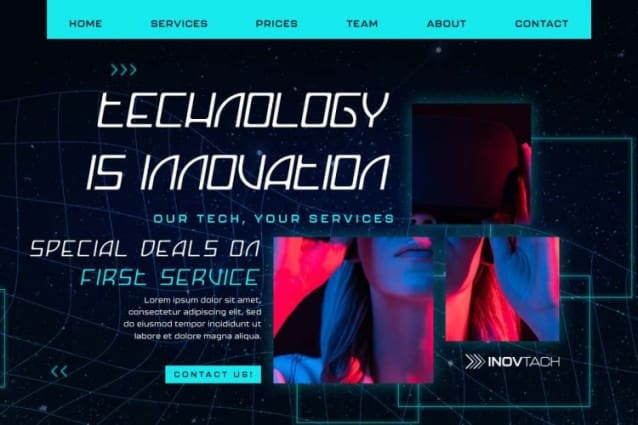
Planet View Font is a futuristic display font that creates the atmosphere and style of advanced technology. This view usually looks good as both header and text. But it can be used in your projects in various fields such as banners, billboard, blogs, branding logos, brochure, covers, flyer, mockup design, poster, product packaging, screen print, signage, stationery, sticker, template design, titles, websites, and much more.
Planet View Font includes a complete set of Uppercase and Lowercase Letters, Numbers, Punctuation, and Symbols. The letters are perfectly arranged neatly. In this era of modernity, techno typefaces really attract the interest of users. This font takes your unlimited creative ideas into space. Also perfect for cafeteria, clothing brands, films, games, movies, printing, publishing, robotics, space, sports, virtual reality and many others.